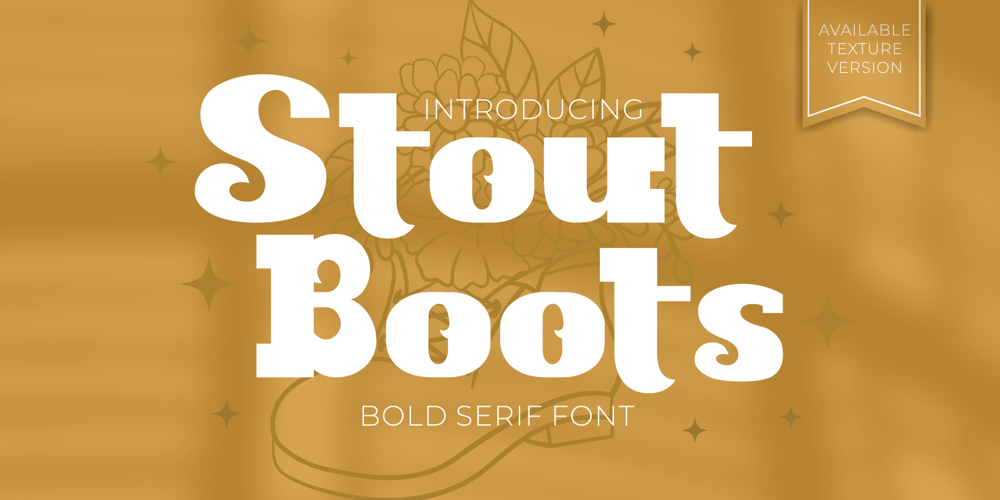
Stout Boots Font Family was designed by Putra Novembria Candra Kusuma and published by Putracetol. Stout Boots contains 2 styles and family package options. Stout Boots is a bold style serif font with strong character and soft features. Stout Boots is equipped with Swash, Stylistic and Titling alternates as well as with Standard and Discretionary LigaturesAnd this font Stout Boots is a stylish font that is both retro and bold font. It’s thick curves give a groovy vibe with the serifs bringing it slightly back to traditional. Comes with alternatives and ligatures, helps to create stunning logos, quotes, posts, blog posts. branding projects, magazine imagery, wedding invitations, and much more.The alternative characters were divided into several Open Type features such as Swash, Stylistic Sets, Stylistic Alternates, Contextual Alternates, and Ligature. The Open Type features can be accessed by using Open Type savvy programs such as Adobe Illustrator, Adobe InDesign, Adobe Photoshop Corel Draw X version, And Microsoft Word. This font is also support multi language.